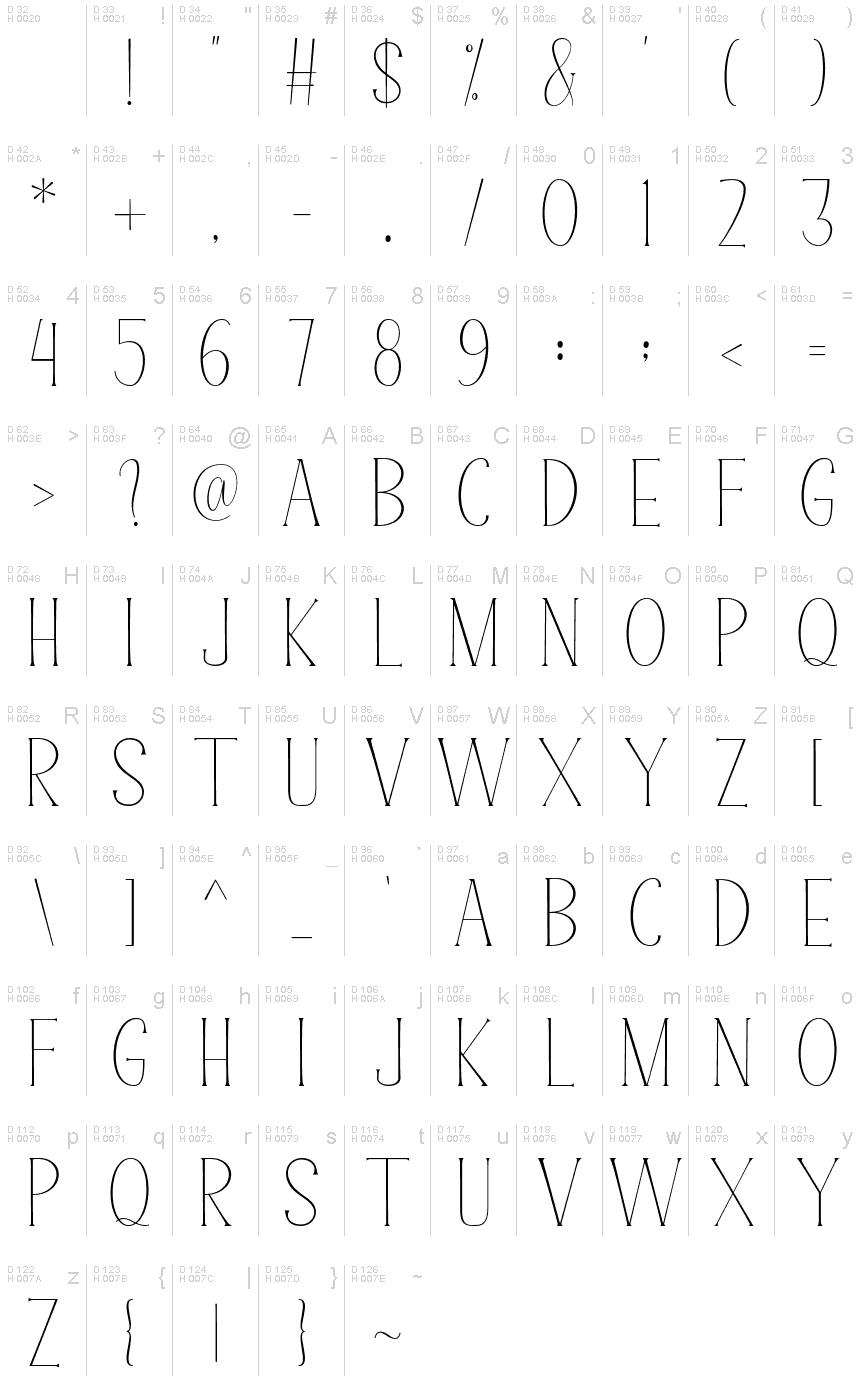
SuperNaturalItalic
Discover the enchanting world of Super Natural Italic, a captivating serif font designed by Cut Story. With its light weight and condensed width, this elegant typeface adds a touch of sophistication to any project. Perfect for bringing a sense of mystique to book covers, invitations, and branding materials, Super Natural Italic will transport readers into magical realms and ignite their imagination. Its graceful curves and delicate strokes create a harmonious flow that captures attention effortlessly. Unleash the power of Super Natural Italic and let your designs cast an irresistible spell on viewers.